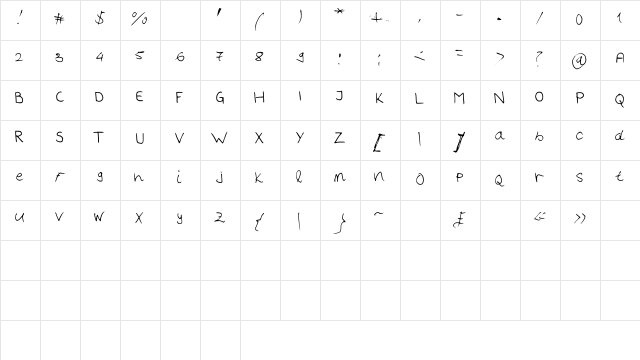
Handwriter Medium
Design Context for Handwriter Typeface
Handwriter flows with the natural rhythm of handwritten lettering, making it ideal for designs that call for warmth and personal expression.
Font Pairing: Combine Handwriter with a simple geometric sans for maximum contrast — the tension between flowing curves and clean structure is a classic typographic pairing.
Pro Tip: Pair Handwriter with a clean sans-serif for supporting text. The contrast between fluid script and geometric structure creates an elegant typographic hierarchy.